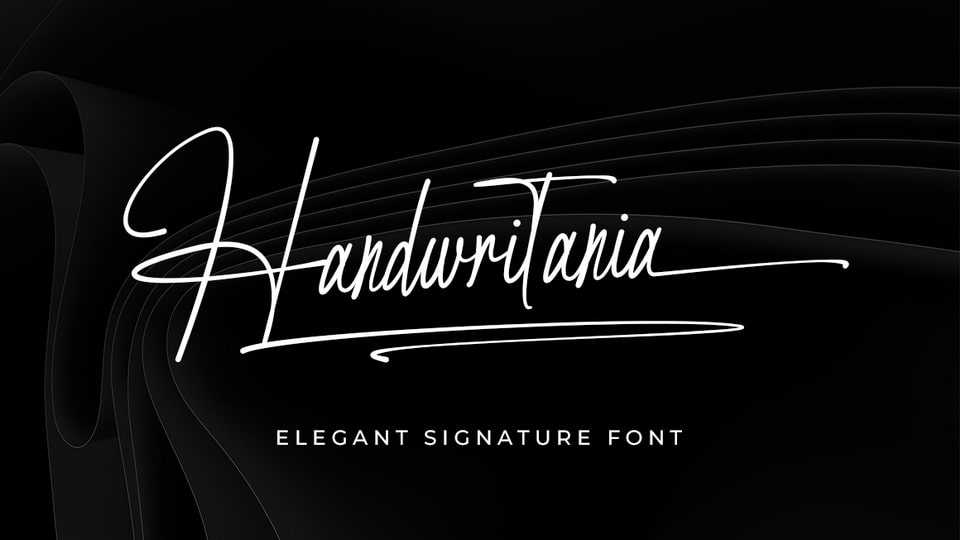
Download Handwritania font, a stylish signature typeface designed with smooth, flowing strokes and timeless elegance, perfectly capturing the beauty of handwritten signatures.